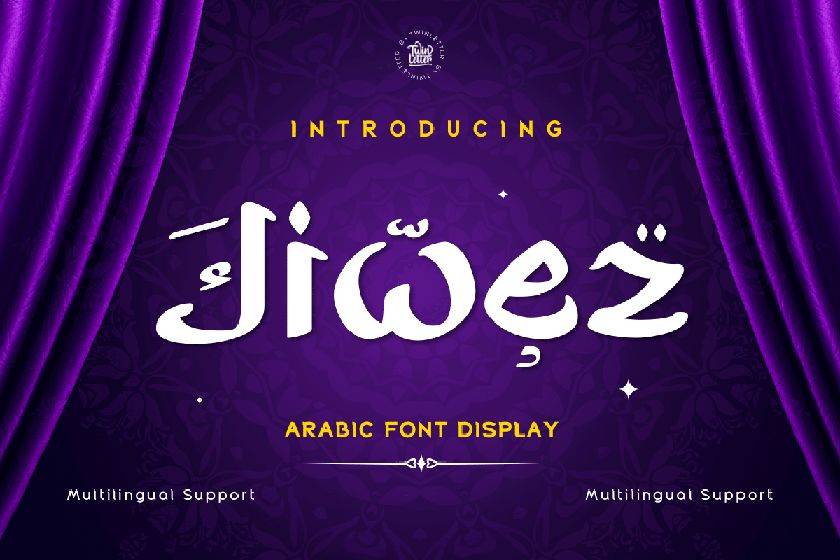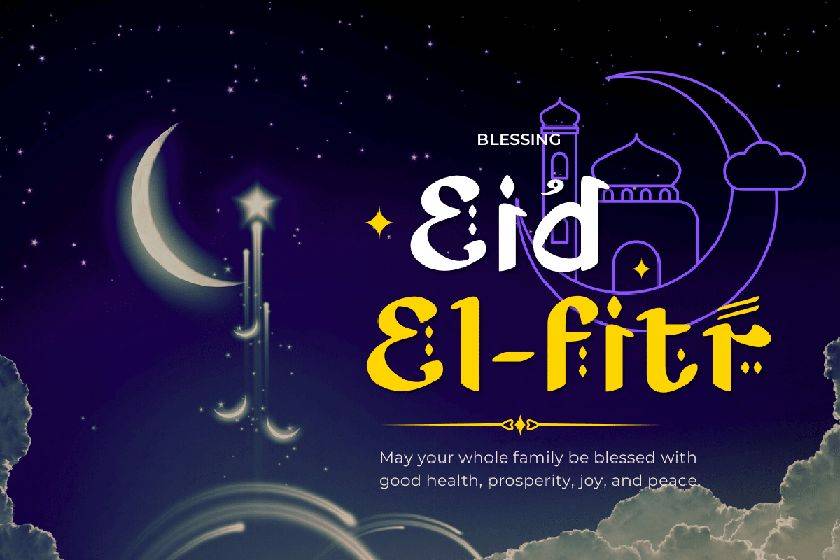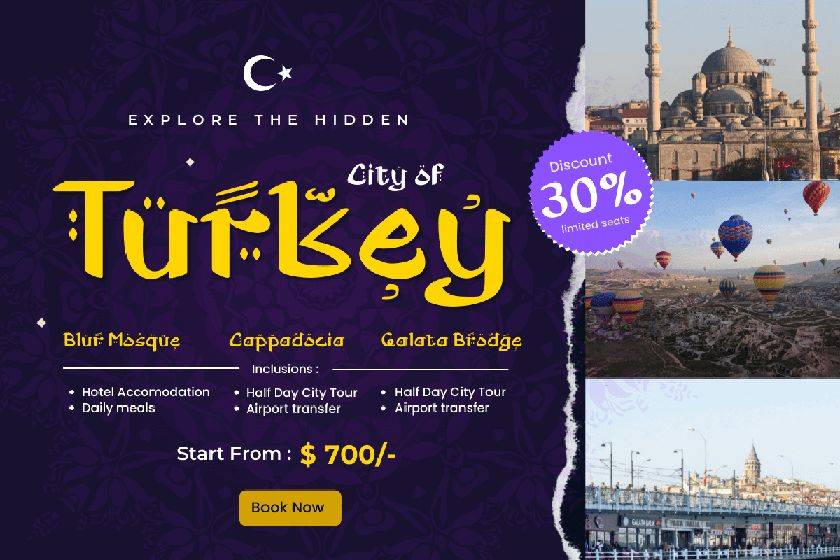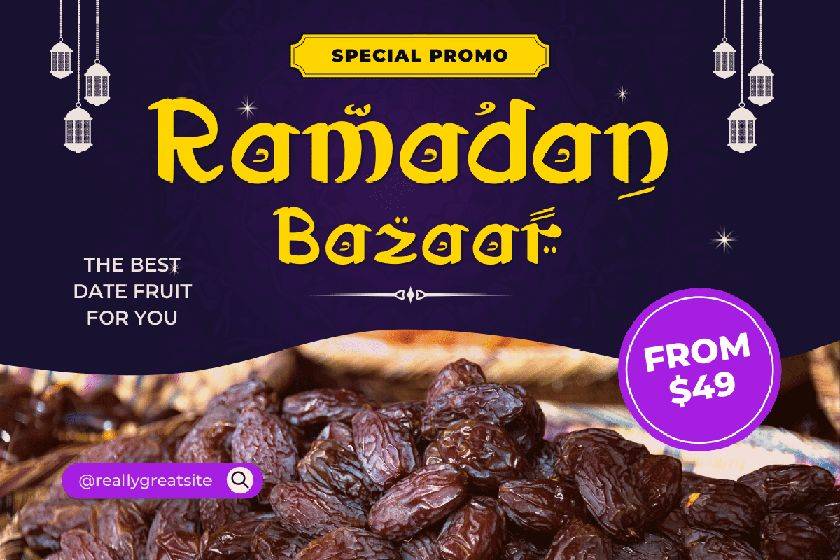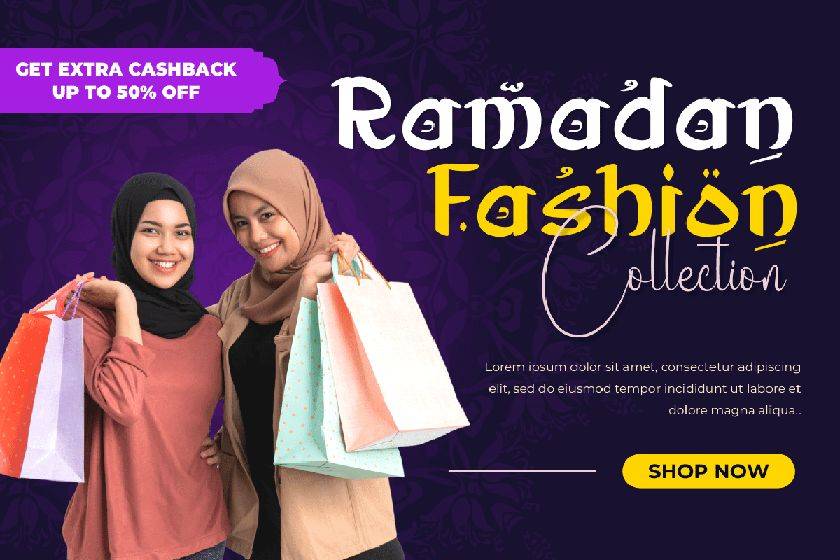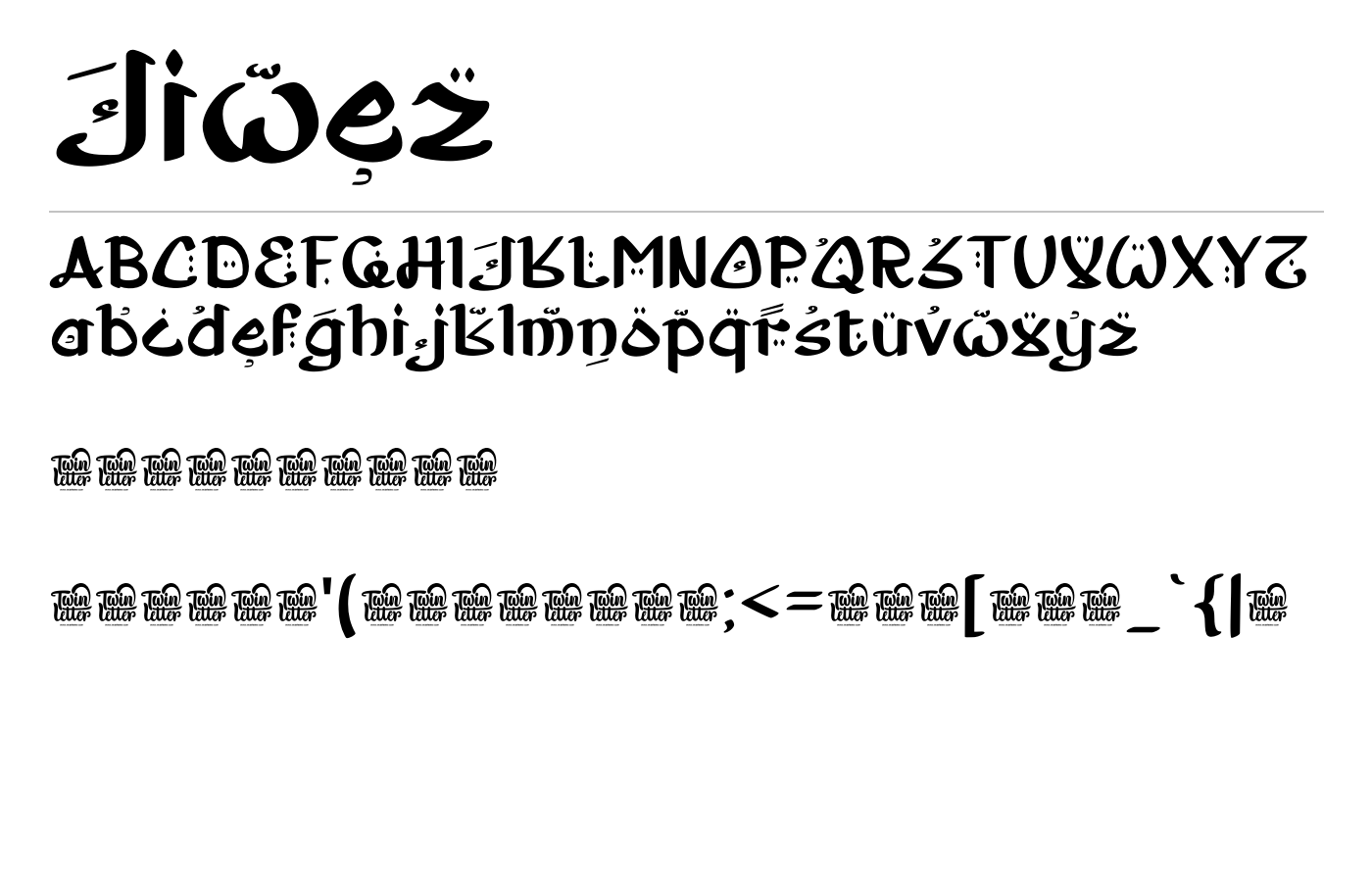
Jiwes is a playful and artistic serif font with unique calligraphic influences and distinctive letterforms that blend organic curves with sharp edges. Its bold weight and moderate contrast give it a strong presence, making it ideal for creative branding, headlines, and projects that seek a blend of cultural flair and modern style. This font works well for eye-catching logos, posters, and editorial designs aiming to stand out with character and originality.
Jiwez Font
About Jiwez Font